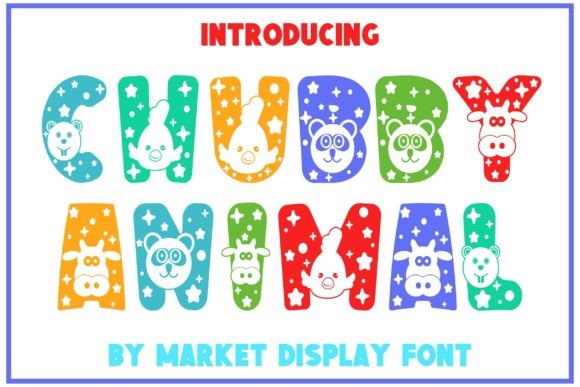
Introducing Chubby Animal Font, the ultimate decorative font that will take your kid-friendly designs to a whole new level of cuteness! Created by MDF, this adorable font is packed with charming animal elements that will capture the hearts of both children and adults alike.
With Chubby Animal Font, you can add a touch of whimsy and playfulness to any design project. Whether you're designing t-shirts, baby onesies, nursery decorations, or digital designs, this font will bring a smile to everyone's face.
Imagine the joy on a child's face when they see their favorite animals beautifully incorporated into their clothing or bedroom decor. With Chubby Animal Font, you can create personalized gifts that will be treasured for years to come.
But it doesn't stop there. This font is not only perfect for kid-related designs; it's also a fantastic choice for greeting cards, invitations, and party decorations. The versatility of Chubby Animal Font allows you to bring a touch of whimsical charm to any occasion.
Let your creativity run wild as you explore the endless possibilities of this captivating font. The carefully crafted animal elements will add a unique and eye-catching touch to your designs, setting you apart from the crowd.
But don't just take our word for it. Join the countless designers who have fallen in love with Chubby Animal Font. Its popularity speaks for itself, with its delightful characters and meticulous attention to detail.
Whether you're a professional designer or a parent looking to add a special touch to your child's world, Chubby Animal Font is the perfect choice. It's time to let your designs come to life with the magic of this captivating font.